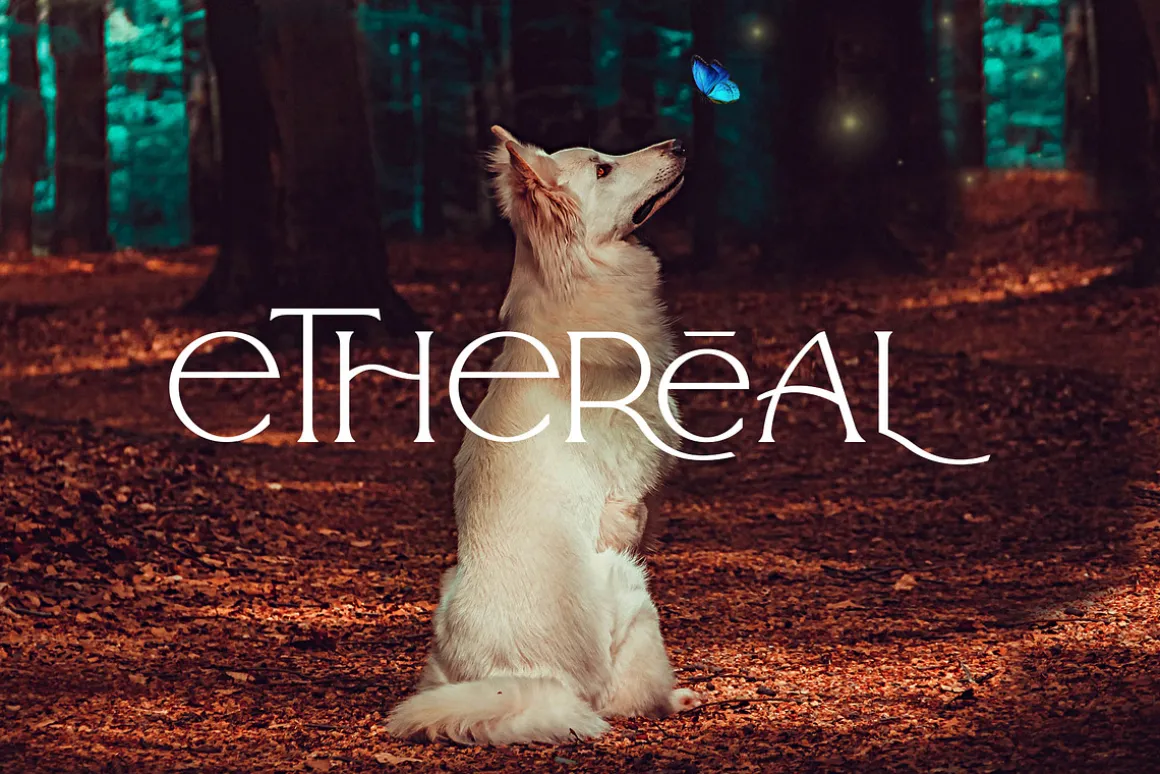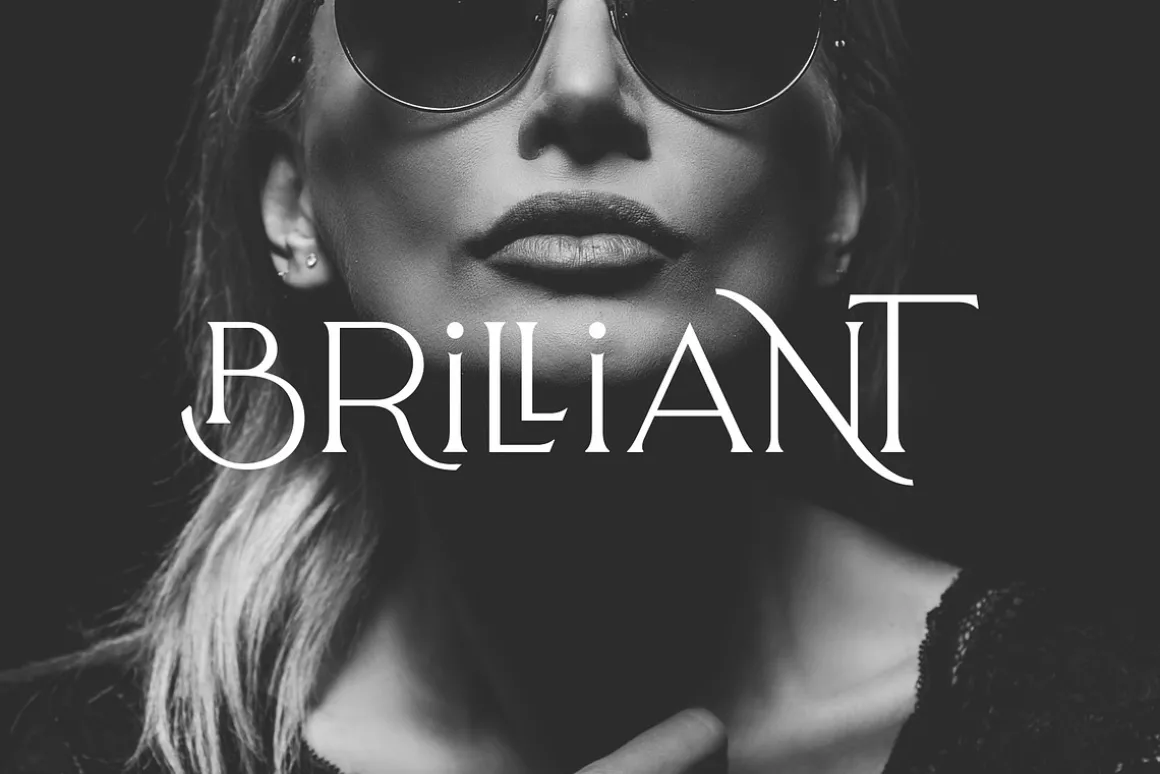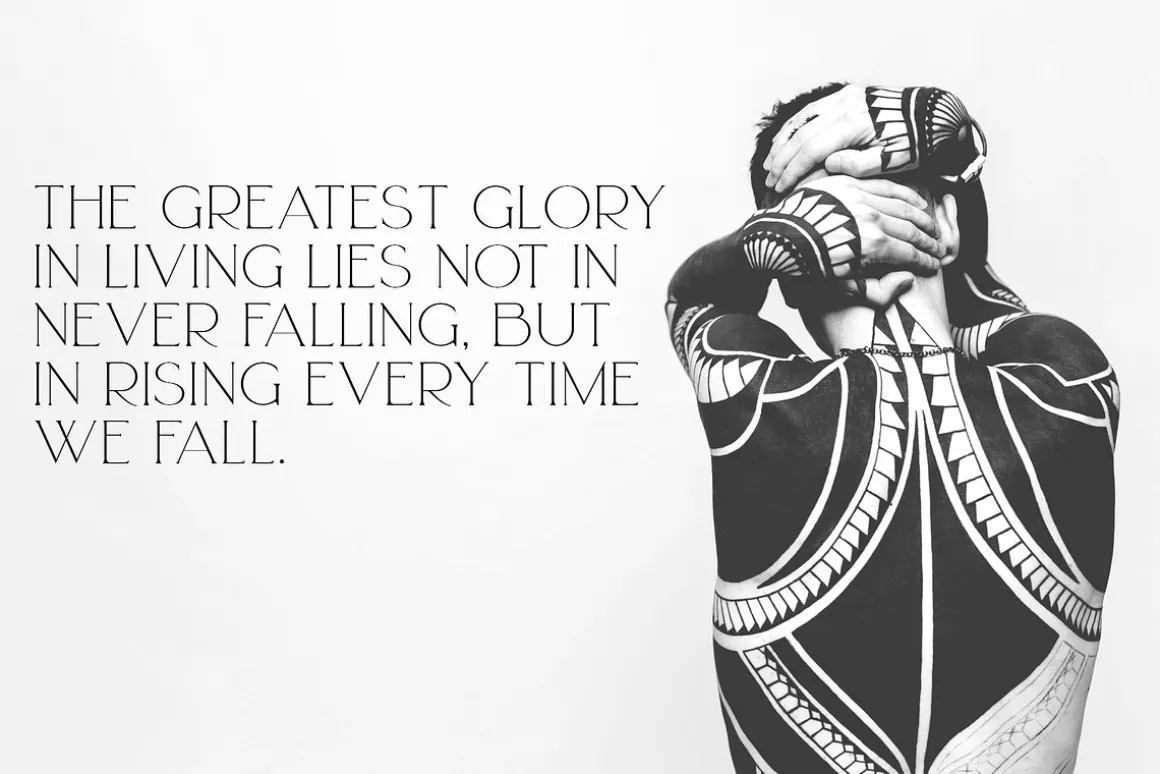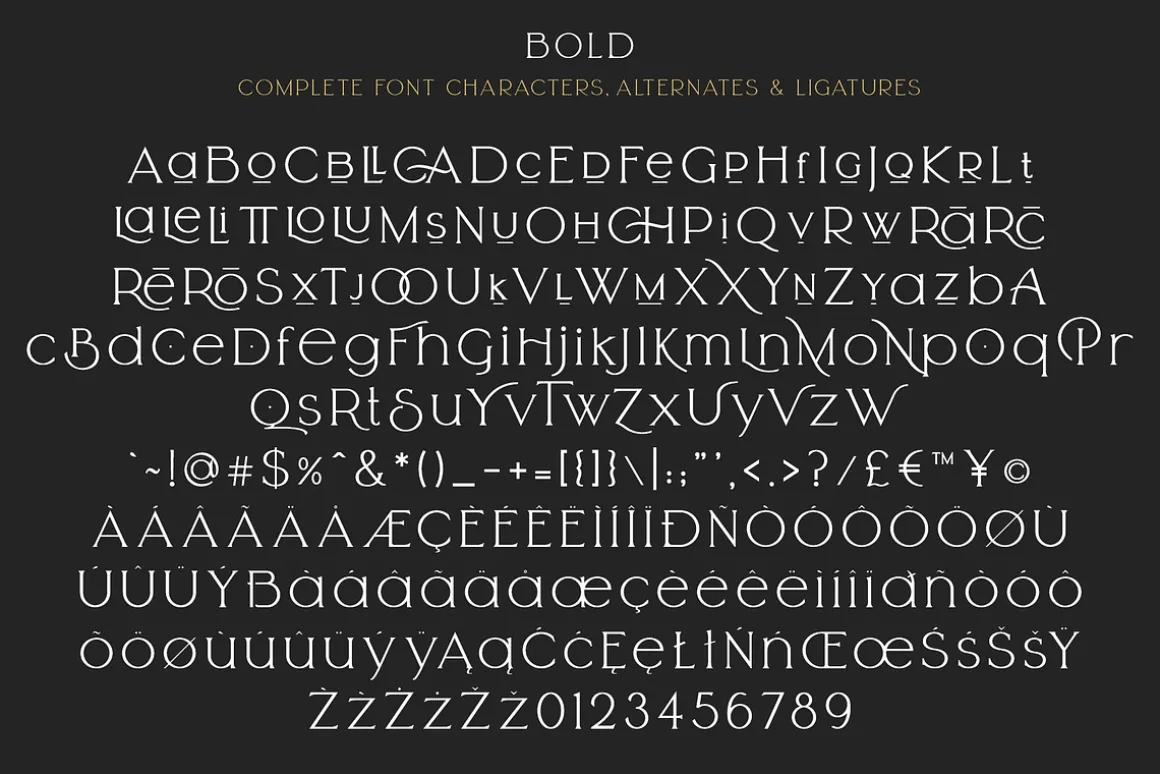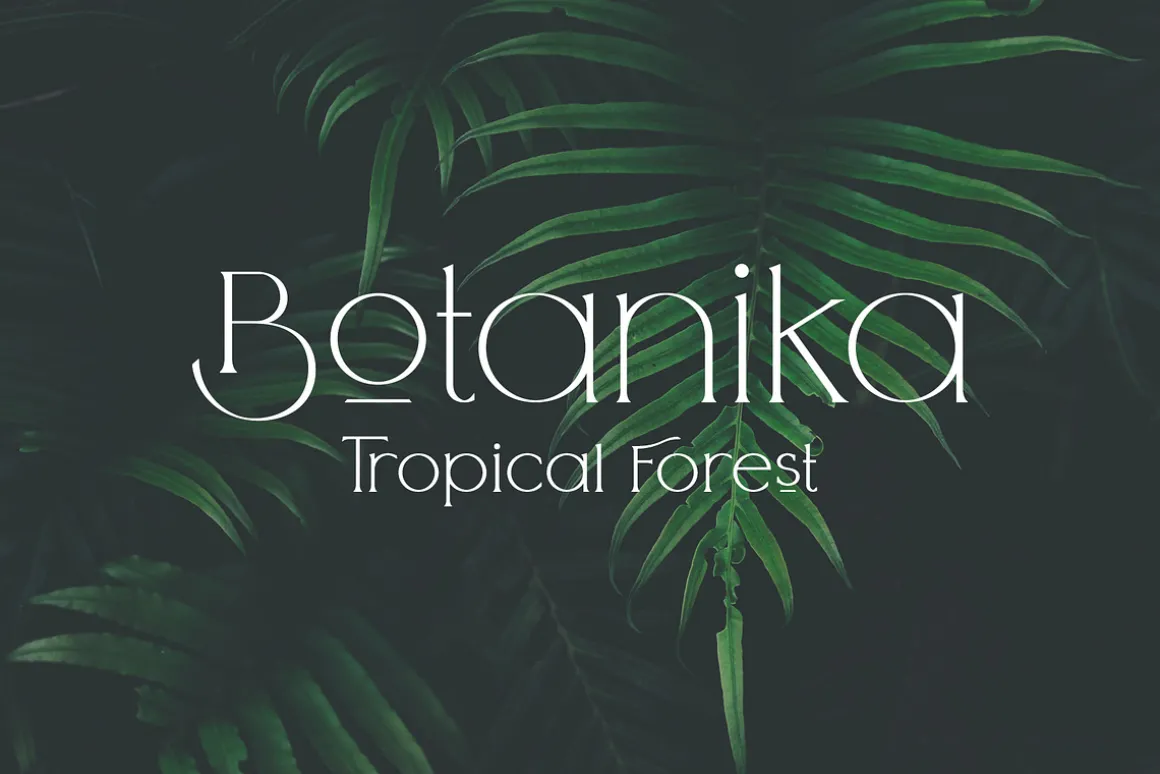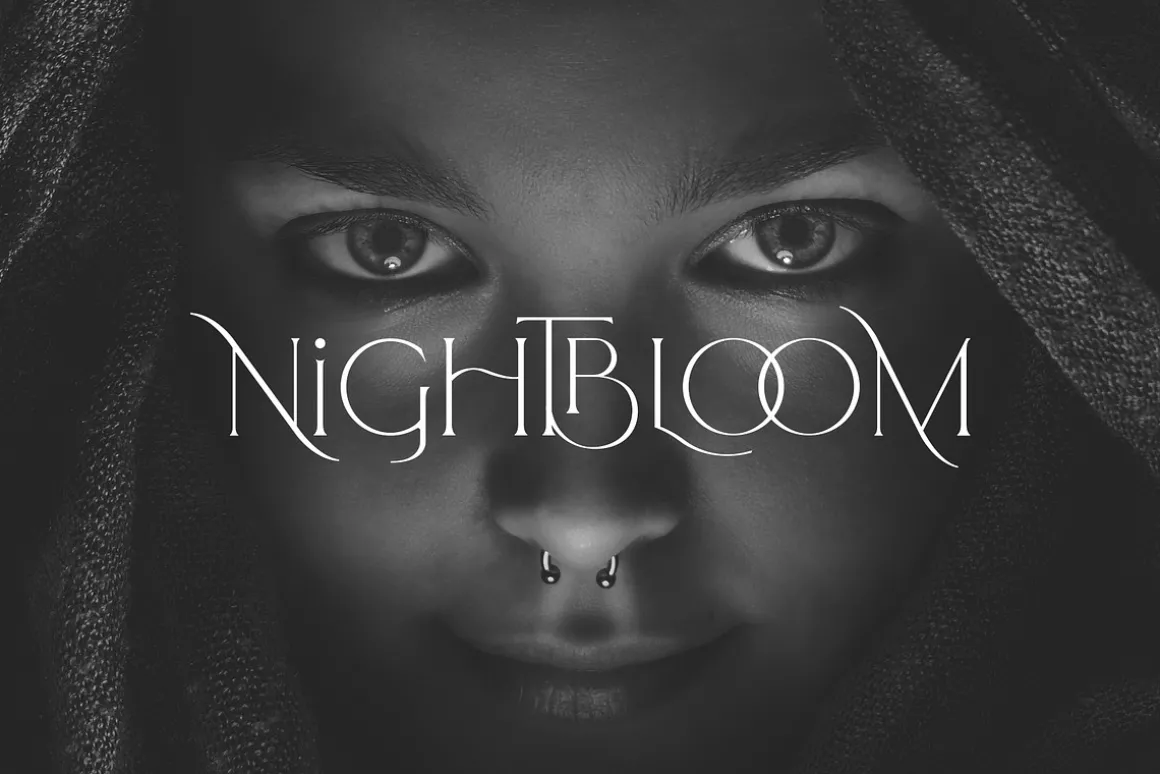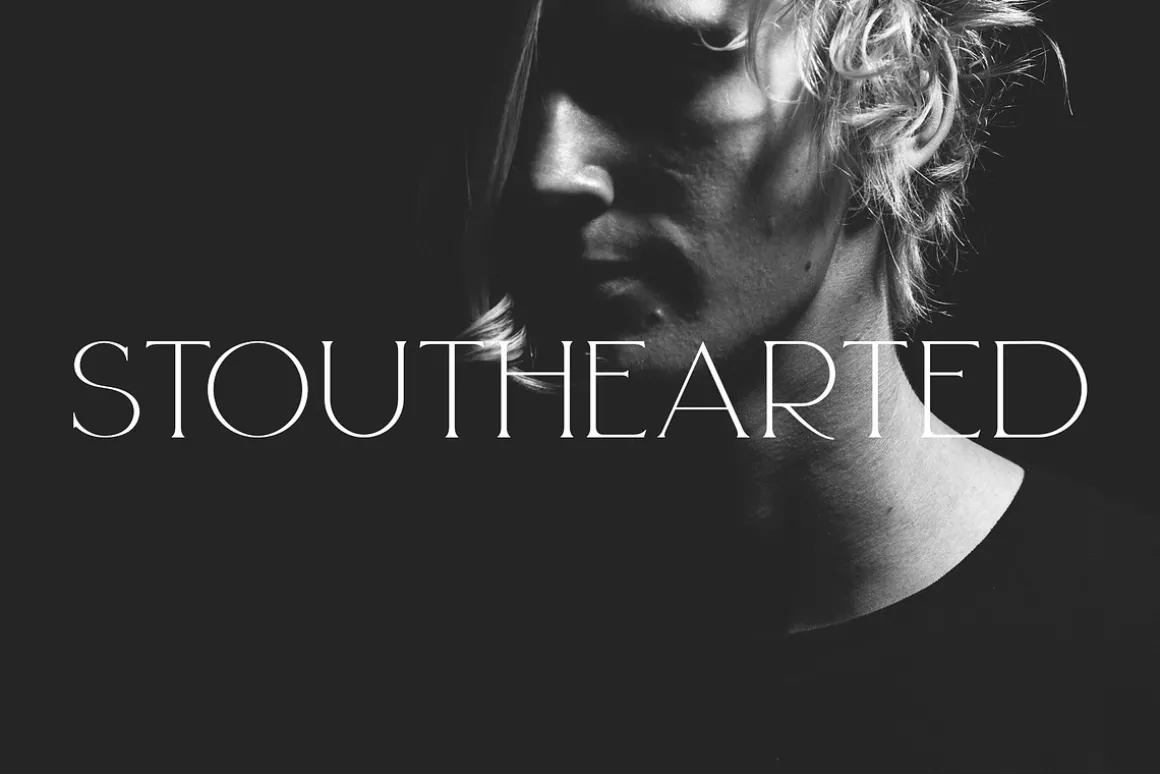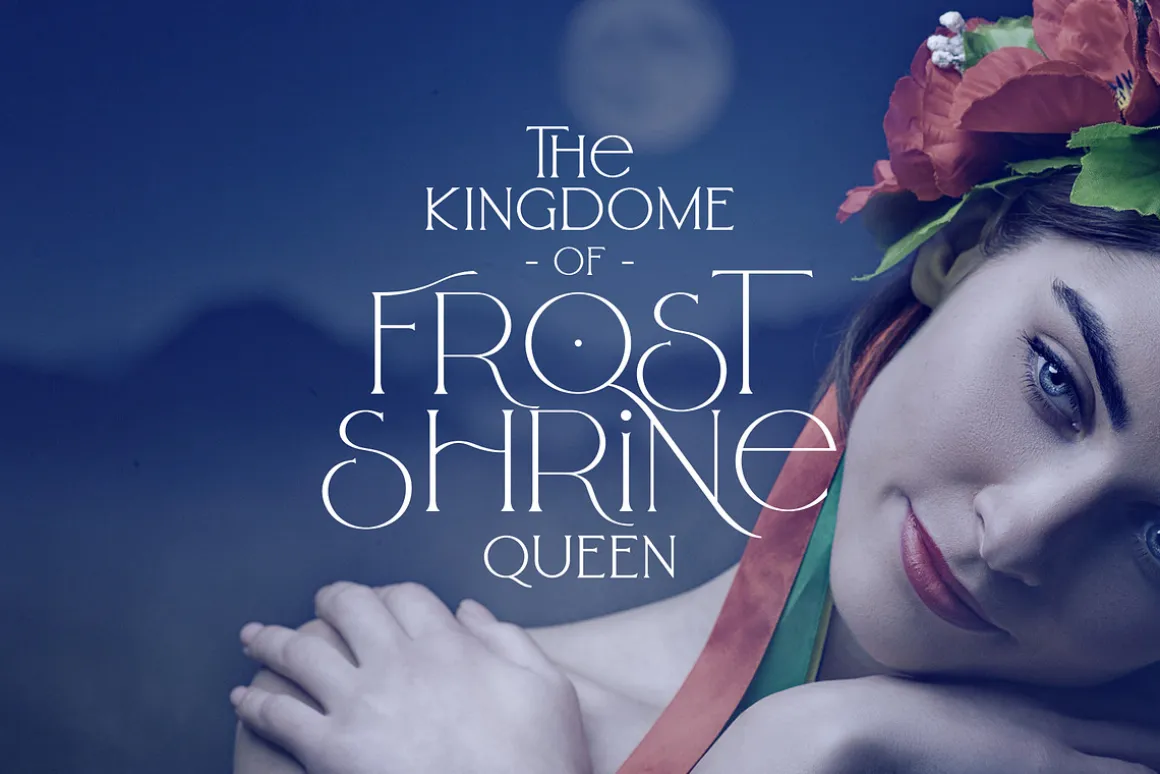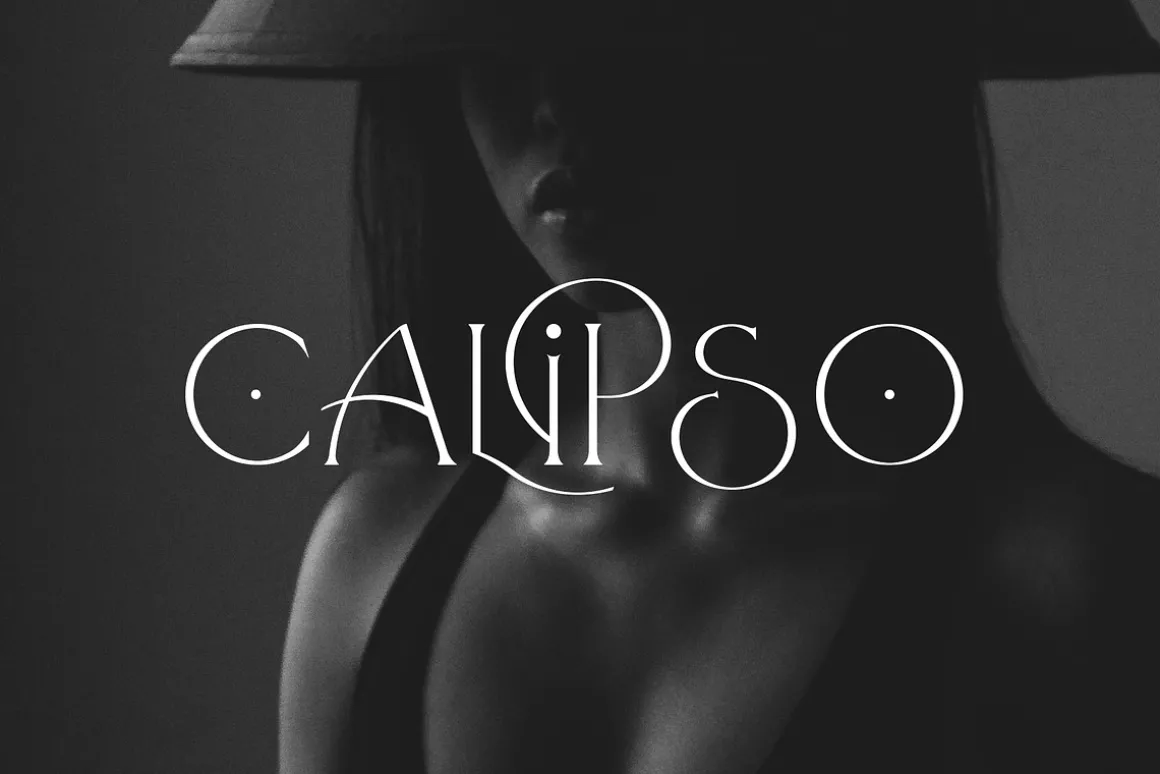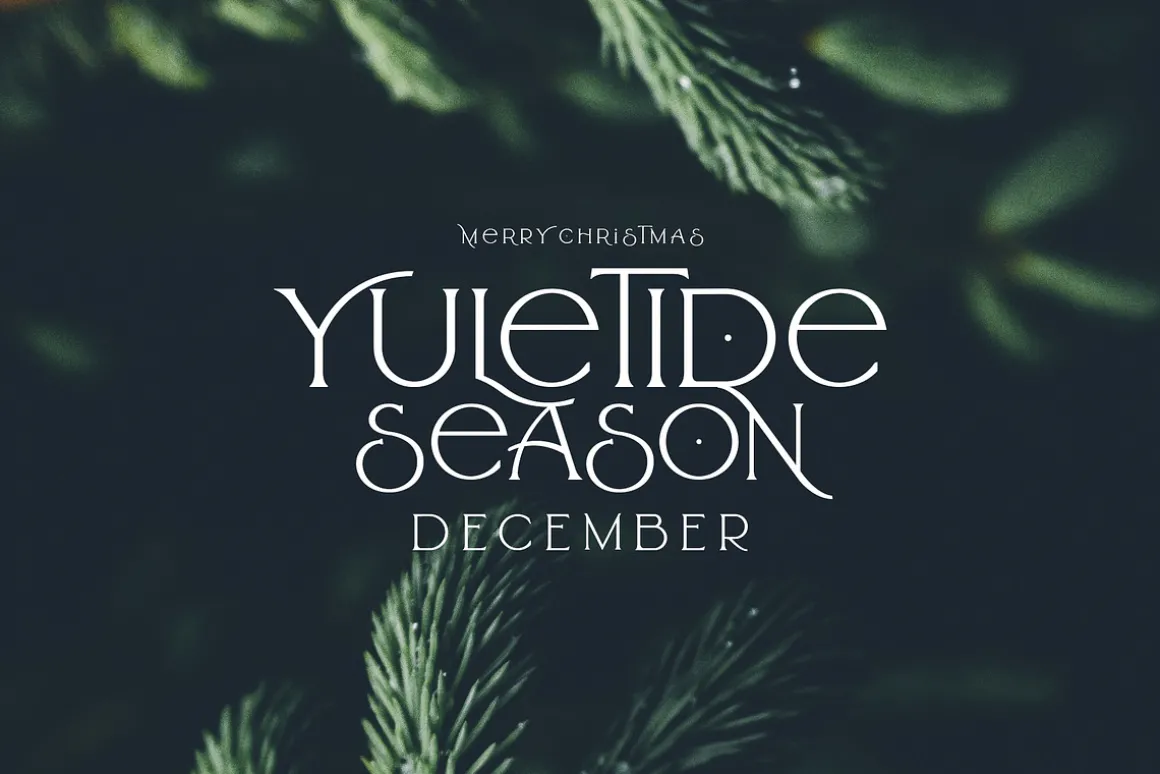
Arrogant is a stylish and very versatile serif font. You can create simple typography or amazing titles and text for your projects using the alternative letters and ligatures.
- Regular & Bold
- Uppercase and lowercase
- Numerals and punctuation
- Alternates and ligatures
- Multilingual support